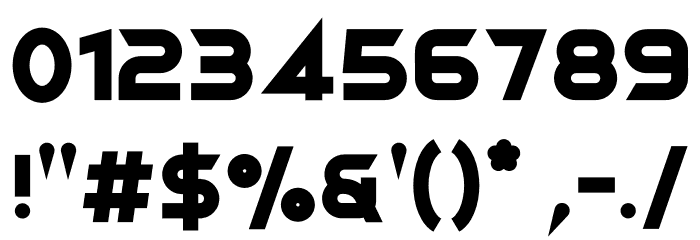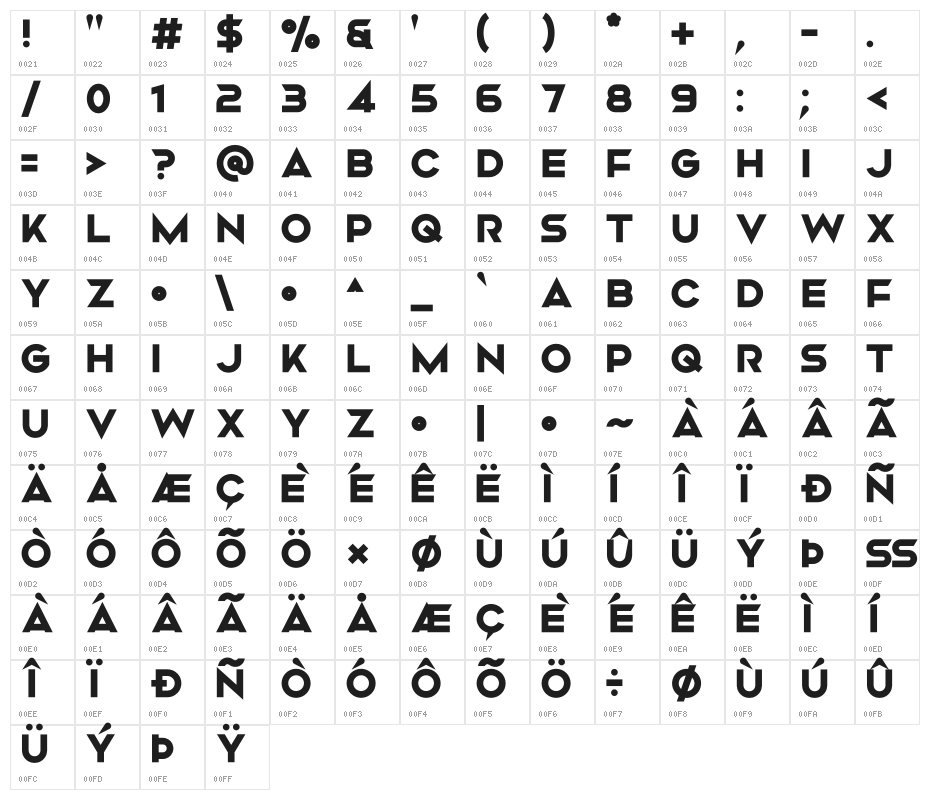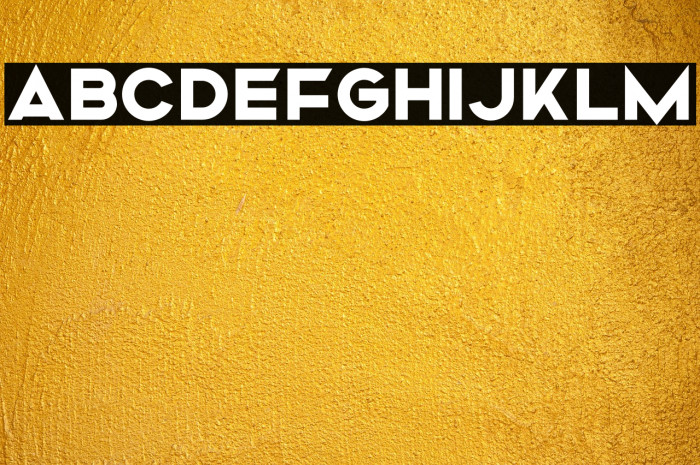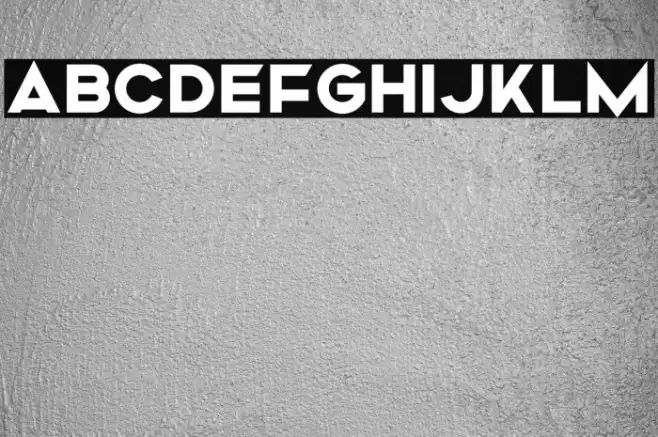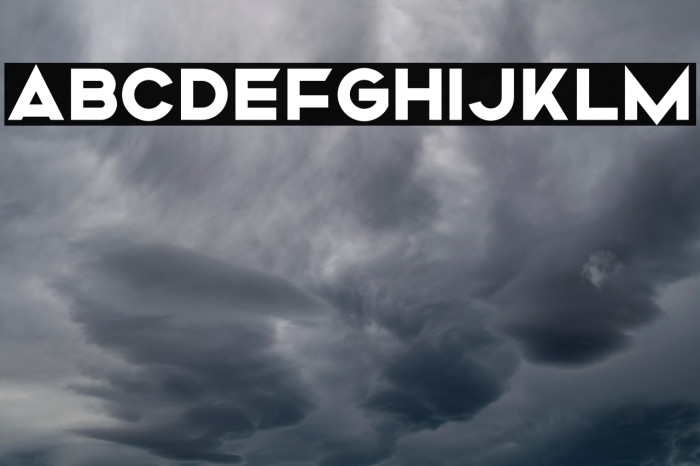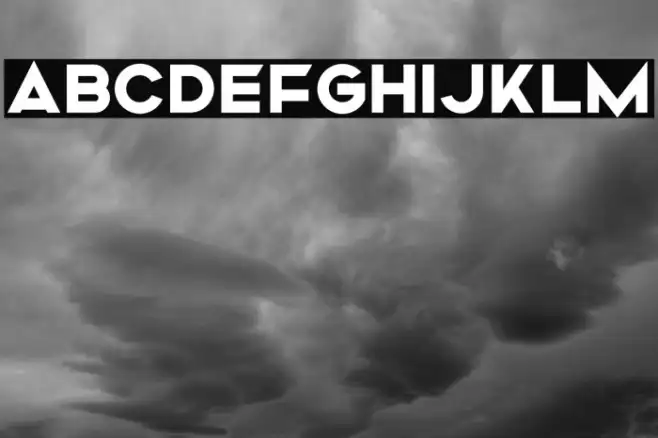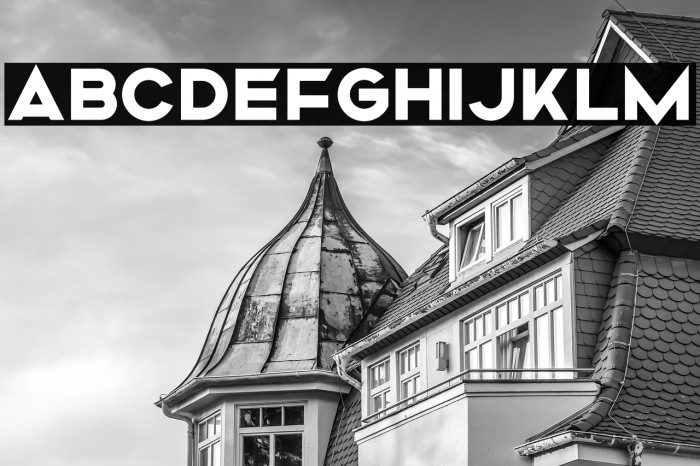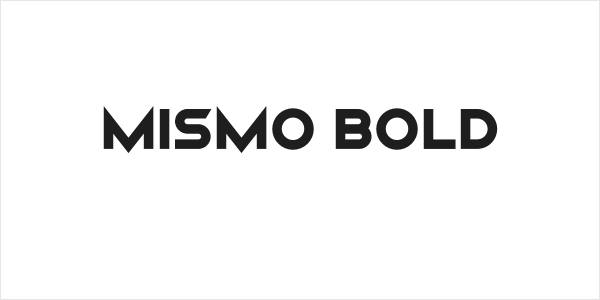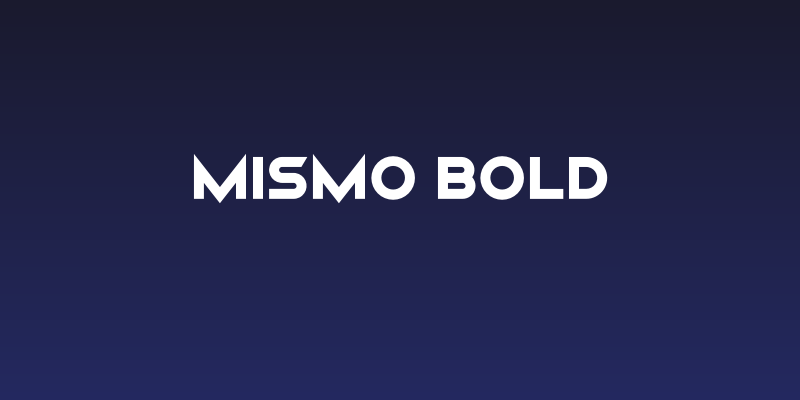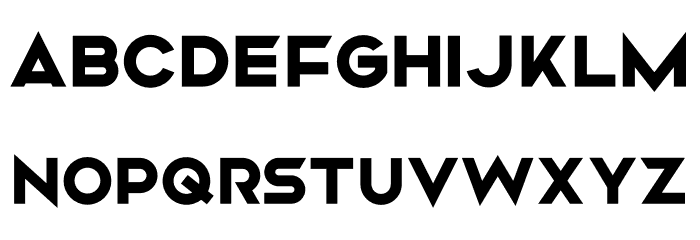
Mismo Bold Font
Mismo Bold Description
This bold and striking font features a geometric and modern design, characterized by its sharp angles and clean lines. The uppercase letters are uniform in height, creating a cohesive and balanced appearance. The numerals are equally bold, maintaining the strong presence of the alphabet. Special characters are designed with the same attention to detail, ensuring consistency throughout the font. Its bold weight and high contrast make it ideal for grabbing attention, while the normal width and tight character spacing contribute to its impactful and assertive style.
| Proposed Projects | Ideal for branding, headlines, posters, and any project requiring a strong visual impact. |